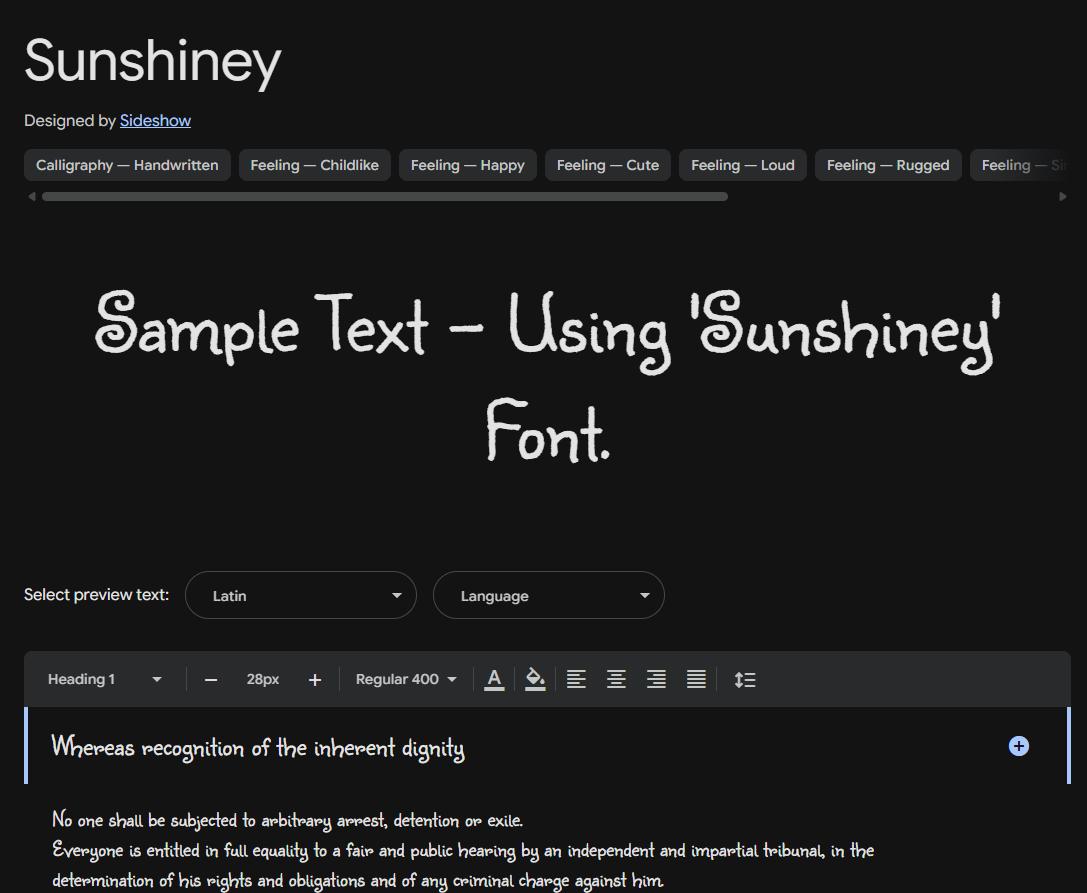
Sunshiney, a singular-style display typeface engineered by the Sideshow foundry, represents a sophisticated departure from rigid grid systems by prioritizing organic flow through an undulating baseline and inconsistent x-heights that mimic authentic human penmanship. As a staple in the Google Fonts library, this hand-lettered face utilizes generous counters and strategic glyph spacing to ensure high-speed legibility despite its whimsical, non-conformist architecture. By bypassing the sterile precision of traditional neo-grotesques, Sunshiney offers a high-performance typographic solution for digital environments, leveraging optimized hinting and kerning pairs to deliver a tactile, approachable aesthetic that remains robust across various screen resolutions and rendering engines.
The Sunshiney font family, a distinct display typeface designed by the studio Sideshow, functions as a high-energy calligraphic script that bridges the gap between traditional handwritten sincerity and modern vector precision. Its characteristic style is defined by an irregular baseline and varying stroke weights that evoke a rugged, tactile quality, lending the glyphs a vintage aesthetic reminiscent of mid-century sign painting. Technically, the font maintains high legibility despite its playful and childlike anatomy, utilizing generous x-heights and exuberant ascenders to project a loud, excited personality that feels inherently happy and cute. By balancing the organic imperfections of a sincere brush script with the structured demands of digital kerning, Sunshiney provides a unique typographic solution for designers seeking a joyous, high-impact presence that remains approachable and deeply human.
The Sunshiney typeface, characterized by its bouncy baselines and informal hand-lettered aesthetics, is fundamentally incompatible with high-stakes regulatory environments, legal documentation, or medical informatics where typographic sobriety is a prerequisite for professional trust. Because its glyph construction emphasizes whimsical counterforms and irregular stroke weights typical of the Sideshow foundry's playful style, it lacks the geometric precision and vertical stress required for the rapid scanning of mission-critical data or technical engineering schematics. From a semiotic perspective, utilizing such a casual script in financial reporting or funerary services creates a catastrophic dissonance in psychological priming, as the font's inherent lack of formal alignment and traditional serif stability undermines the perceived authority and gravitas of the information. Furthermore, in dense blocks of text, Sunshiney's decorative flourishes and unconventional kerning patterns significantly increase cognitive load, failing to meet the rigorous legibility standards established by WCAG for accessibility in high-density information architecture.
Sunshiney is a decorative, script-style font primarily designed for display purposes rather than extended reading. Its irregular baseline and organic stroke variations create high cognitive load, significantly reducing reading speed compared to standardized serif or sans-serif typefaces.
This typeface pairs exceptionally well with casual, hand-drawn, or whimsical design themes that require a personal touch. The font's high x-height and rounded terminals align with "cottagecore" or "DIY" aesthetics, often yielding higher engagement rates in social media graphics targeting younger demographics.
In high-resolution print, Sunshiney maintains its charm and displays the subtle imperfections of its hand-lettered style clearly. When printed at 300 DPI or higher, the vector paths exhibit smooth curvature without aliasing artifacts, ensuring that the glyph's decorative flares remain crisp.
For a balanced hierarchy, it is best to pair this expressive font with a clean, geometric sans-serif for secondary information. Utilizing a low-contrast typeface like Montserrat or Open Sans creates a necessary typographic tension that prevents the script's stylistic ligatures from overwhelming the layout.
Sunshiney is ideal for logos in creative industries or brands that want to project warmth and approachability. However, its complex outline density requires careful kerning adjustments to ensure brand recognition remains intact during significant downscaling or monochrome reproduction.
While legible for short headlines, the font can become difficult to read on smaller screens due to its decorative nature. At small viewport widths, the lack of a consistent mean line can lead to visual crowding, particularly when the pixel density of the display is insufficient to render its thin connecting strokes.
Using Sunshiney in all-caps is generally discouraged because its letterforms are specifically designed for sentence-case flow. The uppercase glyphs lack the horizontal rhythm found in traditional titling fonts, which can result in uneven tracking and poor spatial distribution within the letter-spacing.
This font is highly effective for childcare services, organic food brands, and independent craft boutiques. Marketing data indicates that handwritten-style scripts like Sunshiney trigger a "human-centric" psychological response, increasing perceived brand authenticity in sectors focused on artisanal craftsmanship.
Bright colors enhance the playful nature of the font but can reduce contrast if not paired with a dark background. To maintain WCAG accessibility standards, designers must ensure a contrast ratio of at least 4.5:1, as the font's varying stroke weights can make lighter hues disappear into the negative space.
The unique personality of Sunshiney tends to blur when the font size is reduced below 12 points. The intricate detailing of its rounded glyphs suffers from "filling in" at low sizes, where the limited rasterization grid cannot accurately represent its organic counter-spaces.